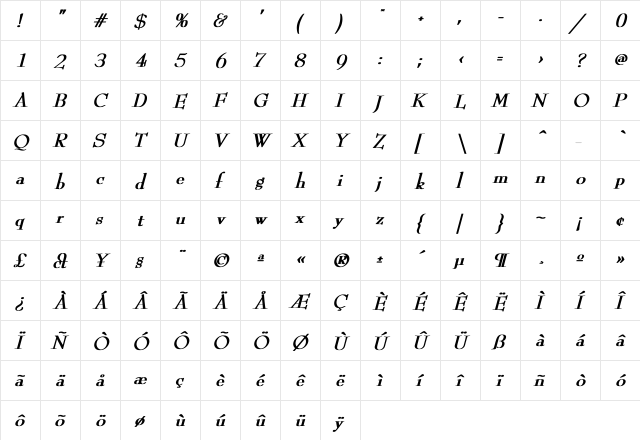
ReedFont bold italic Bold Italic
ReedFont bold italic takes a measured approach to typography — its balanced proportions and neutral character make it a reliable workhorse for both digital and print work. The dynamic lean of this cut emphasises speed and emphasis in any layout. Its bold stroke weight gives it real presence on the page.
Pro Tip: Try ReedFont bold italic for annotation and caption copy alongside an upright companion — the contrast in angle creates a dynamic but ordered typographic system.